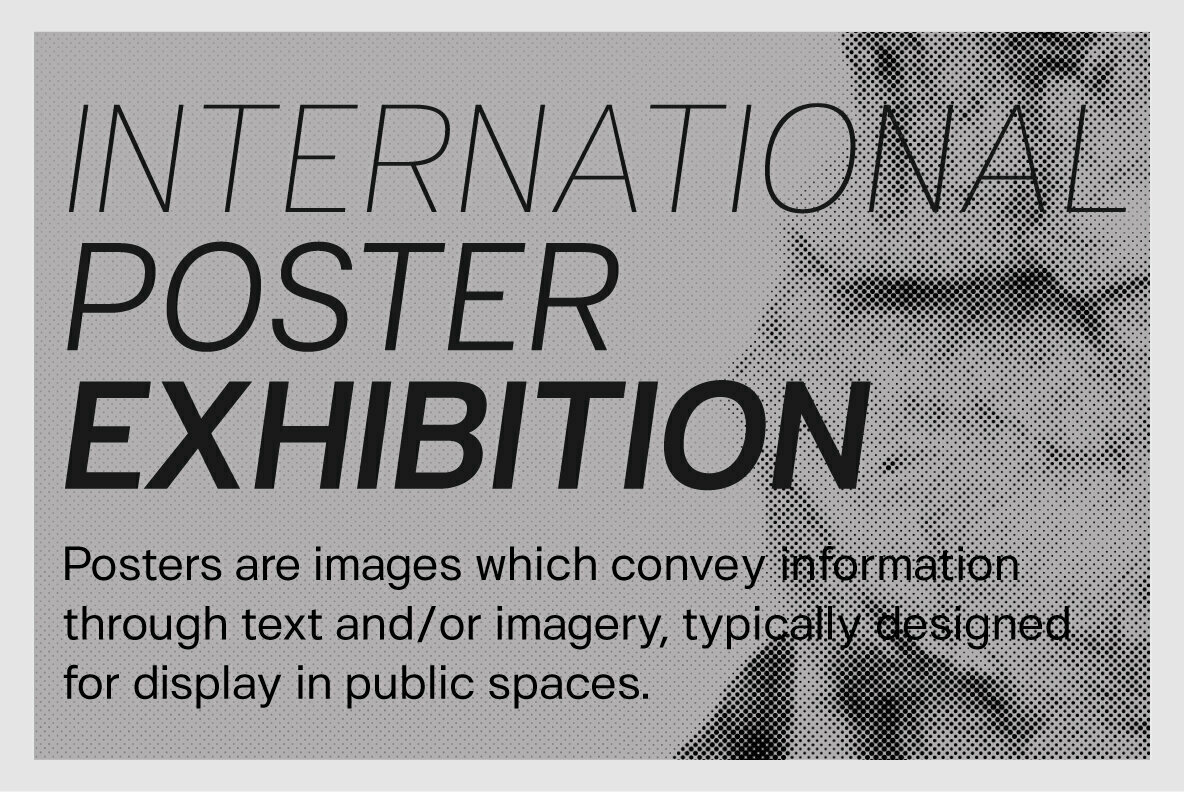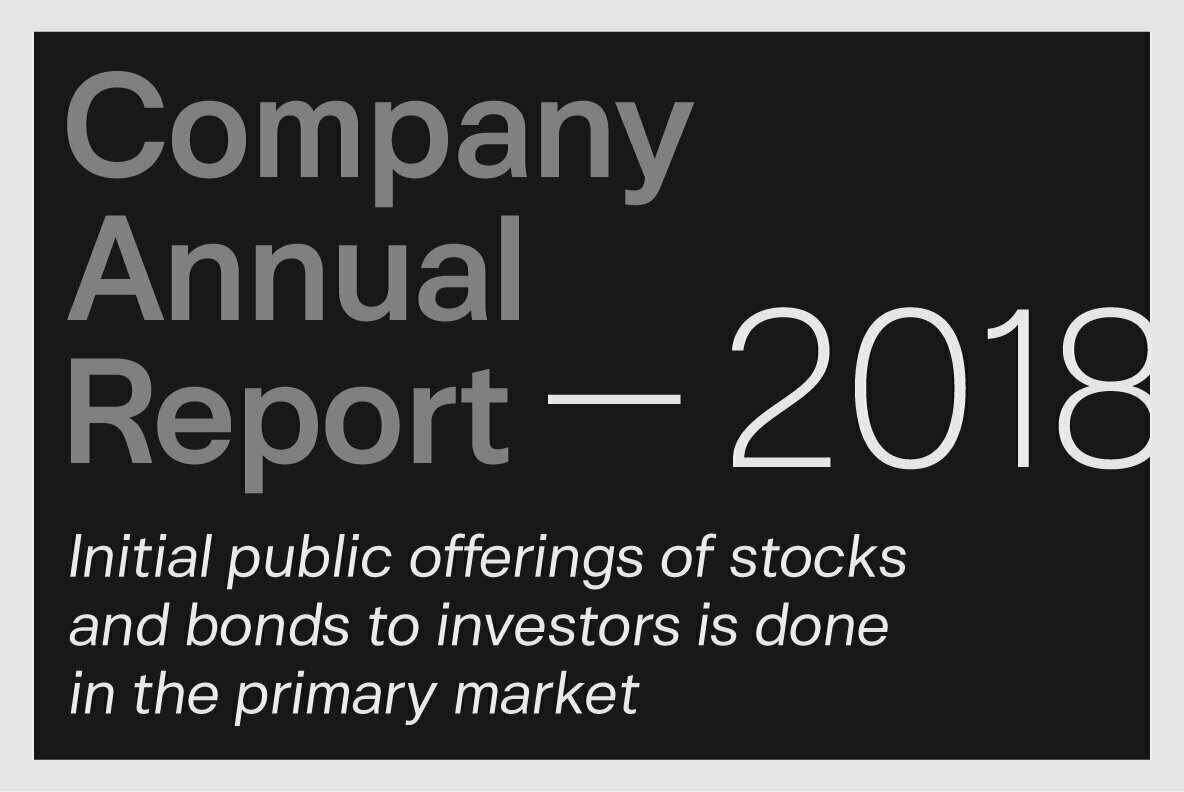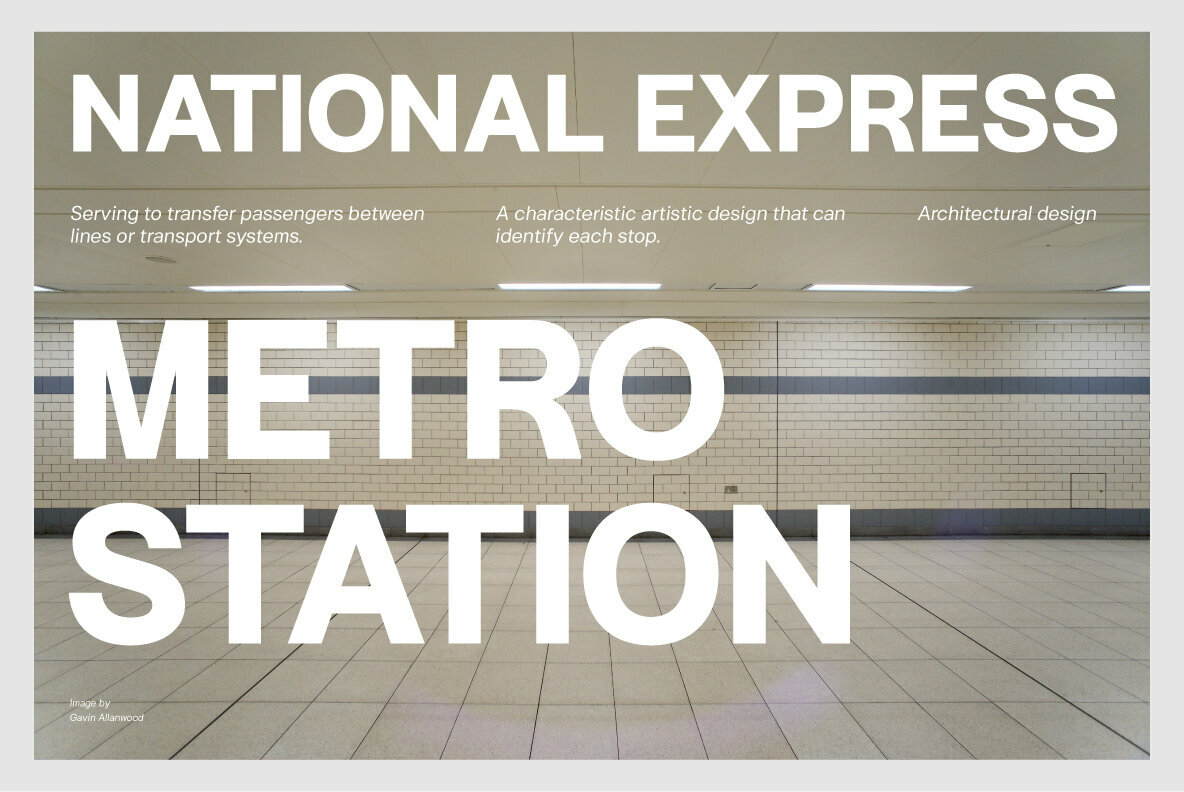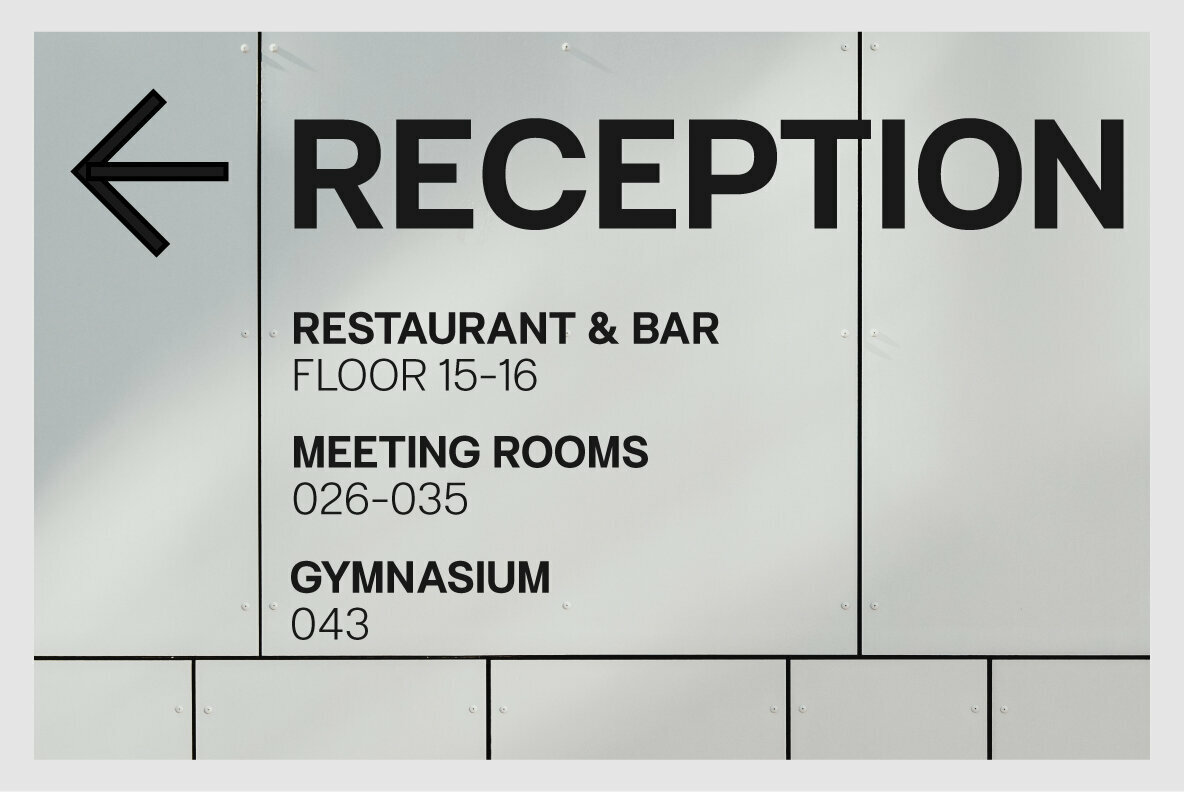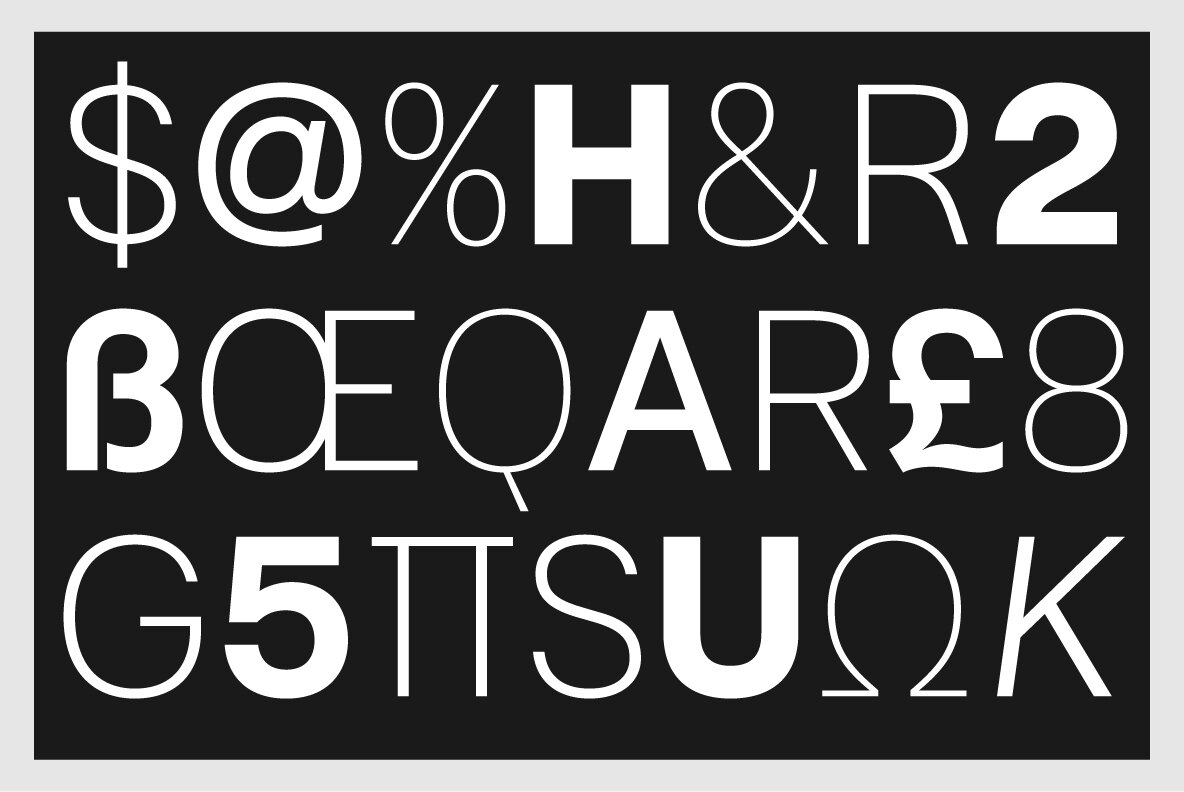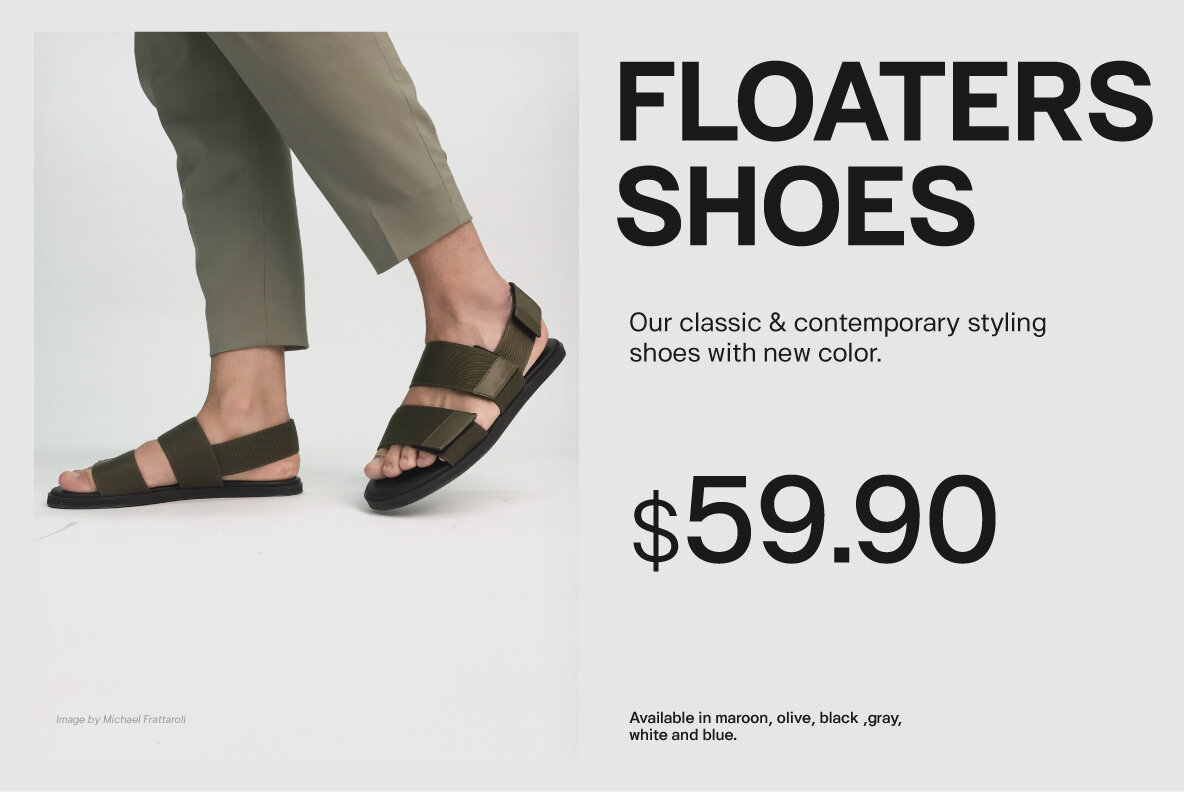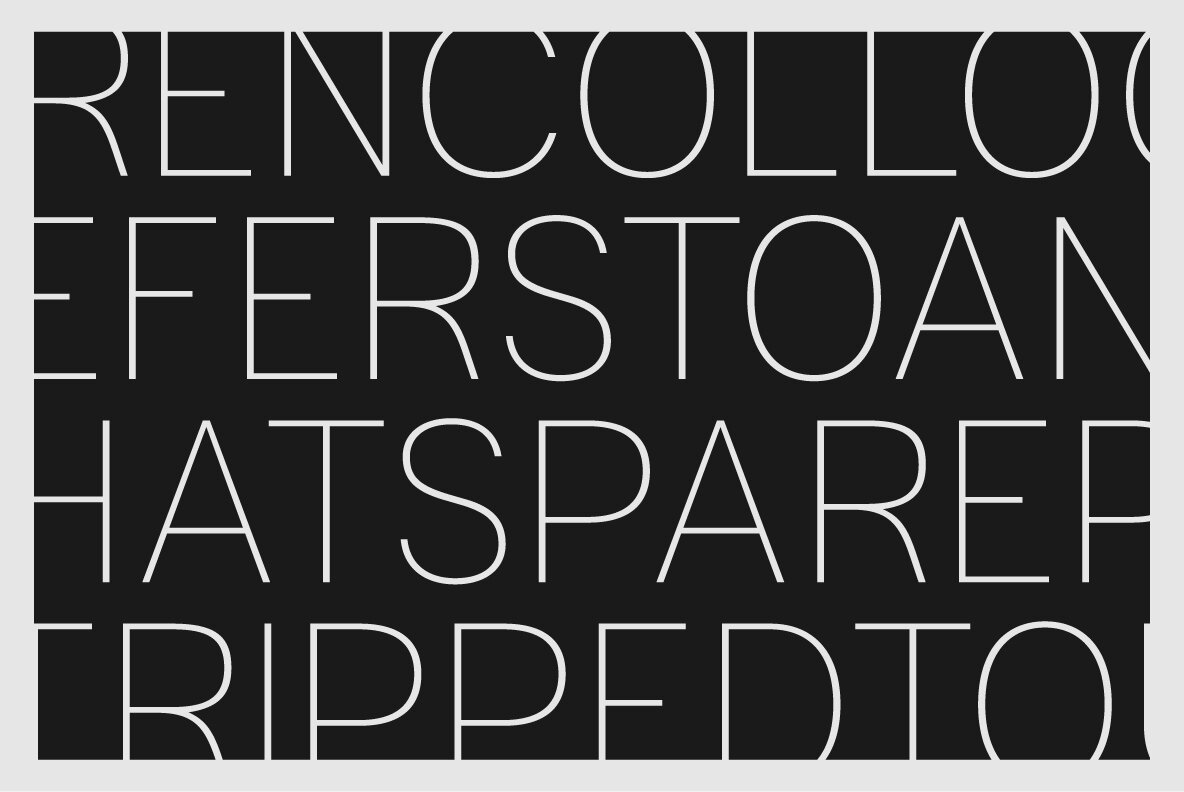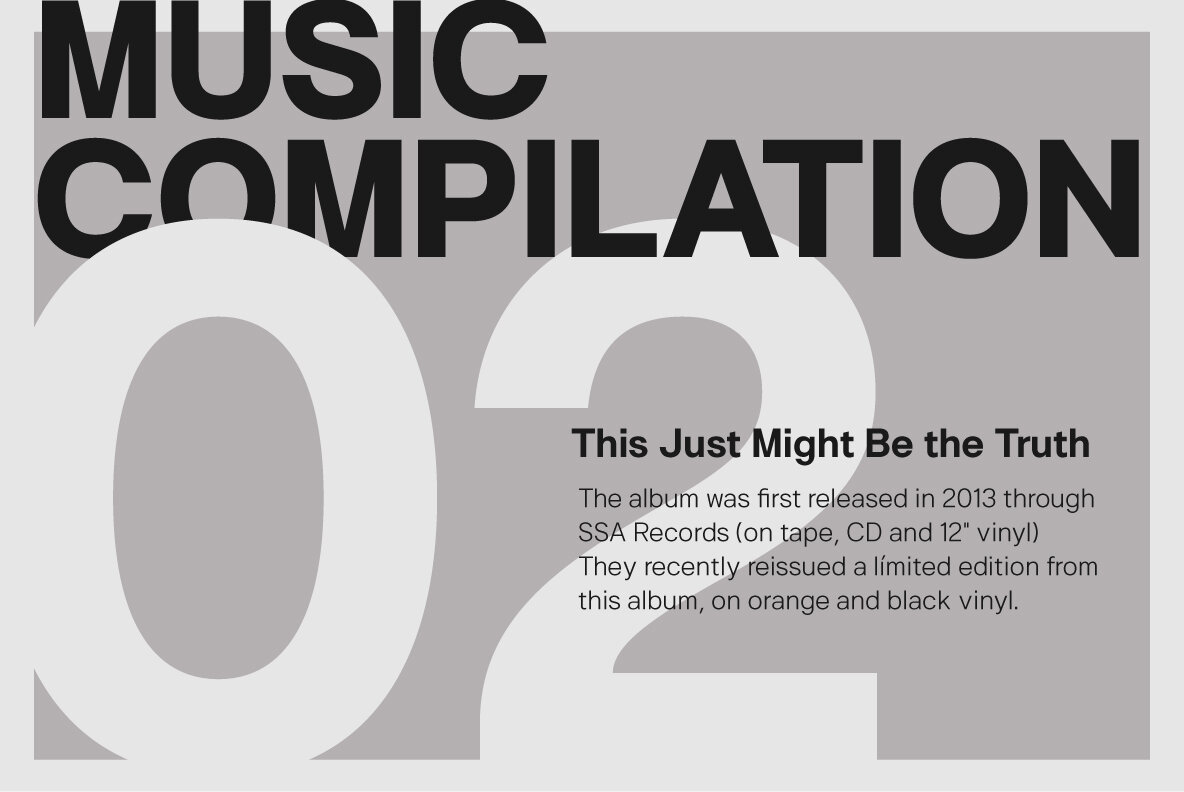
Hergon Grotesk Font
Hergon Grotesk is a family of modern sans-serif fonts. This Typeface is characterized by Neo-Grotesque styling which gives it a strong character, perfectly suited for any visual communication applications. The family contains 10 fonts, ranging from thin to extrabold, along with matching italics.